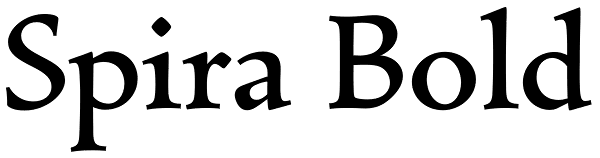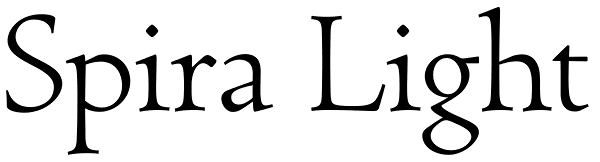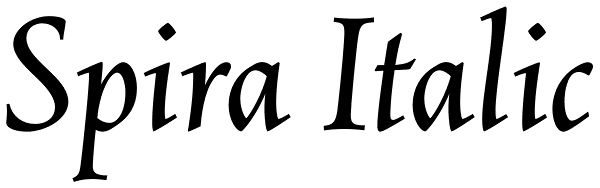
Spira
Calligraphers of the Italian Renaissance adapted ancient models to create “italic” and “roman”, a consciously dramatic departure from standard Church Gothic. Punchcutters followed calligraphy until the French court adopted the formality of Aldus...